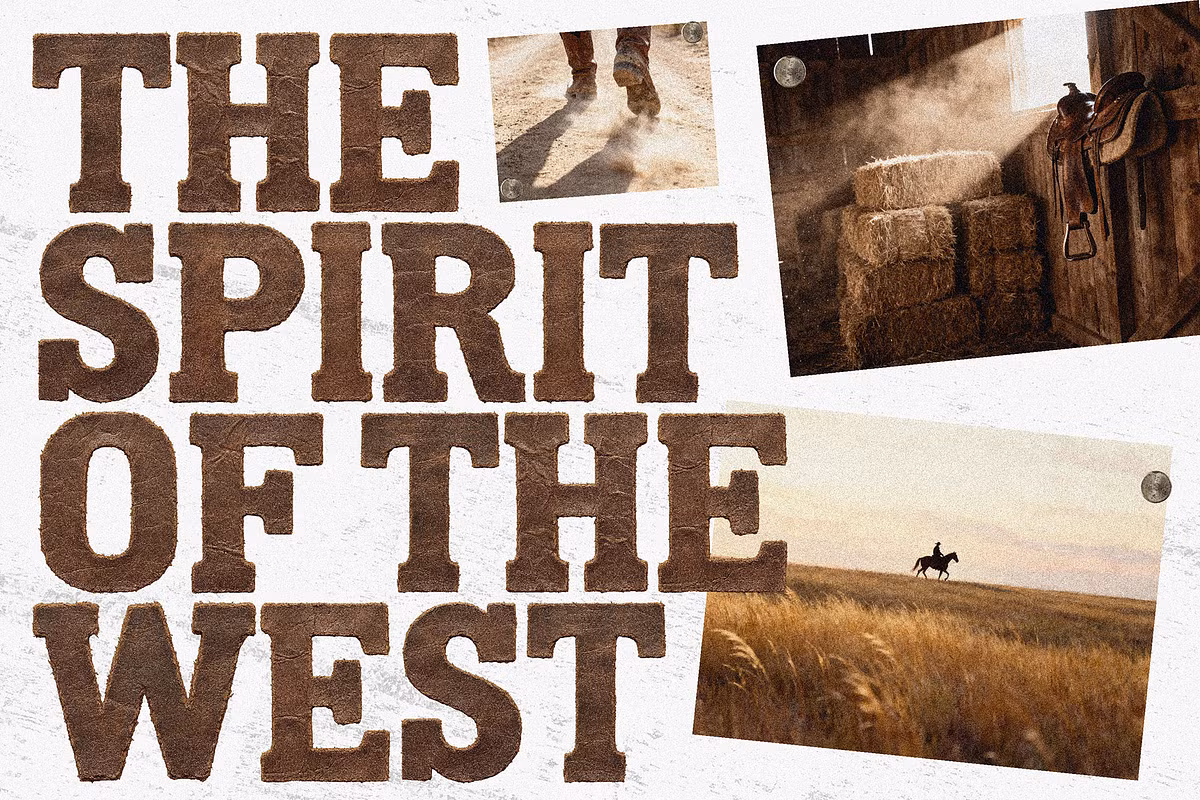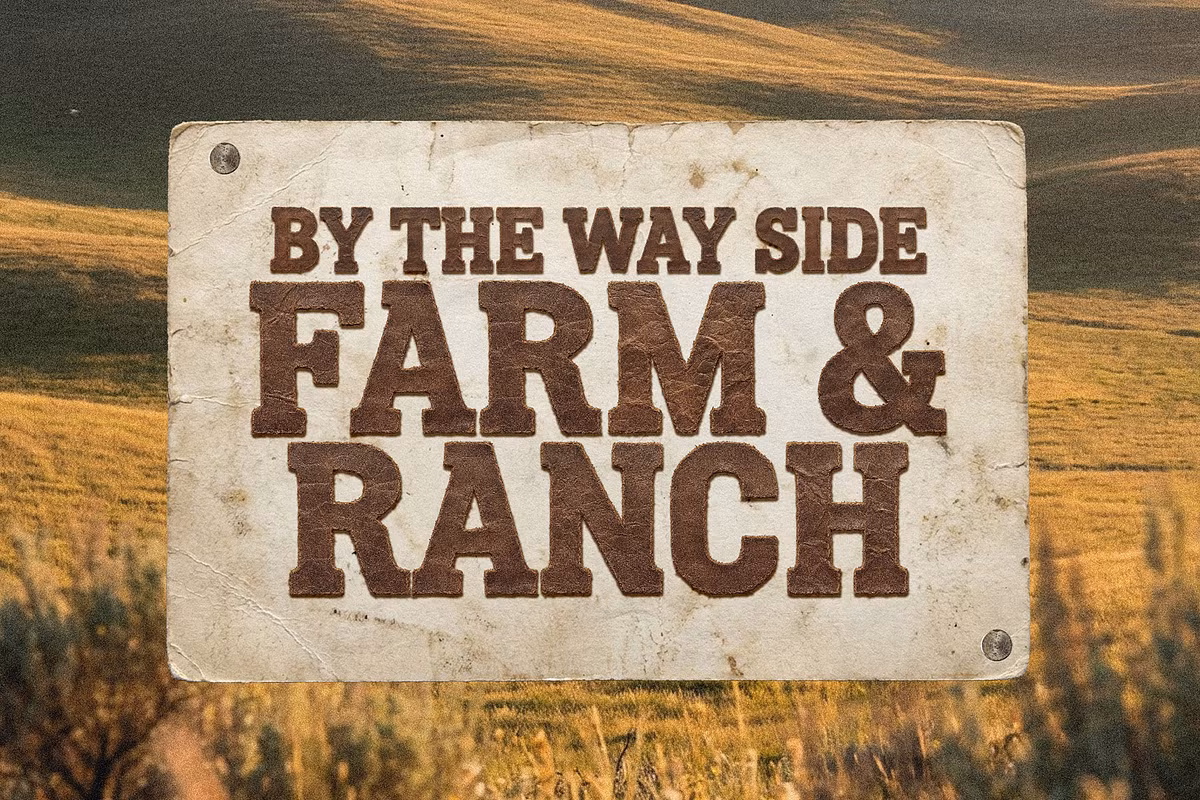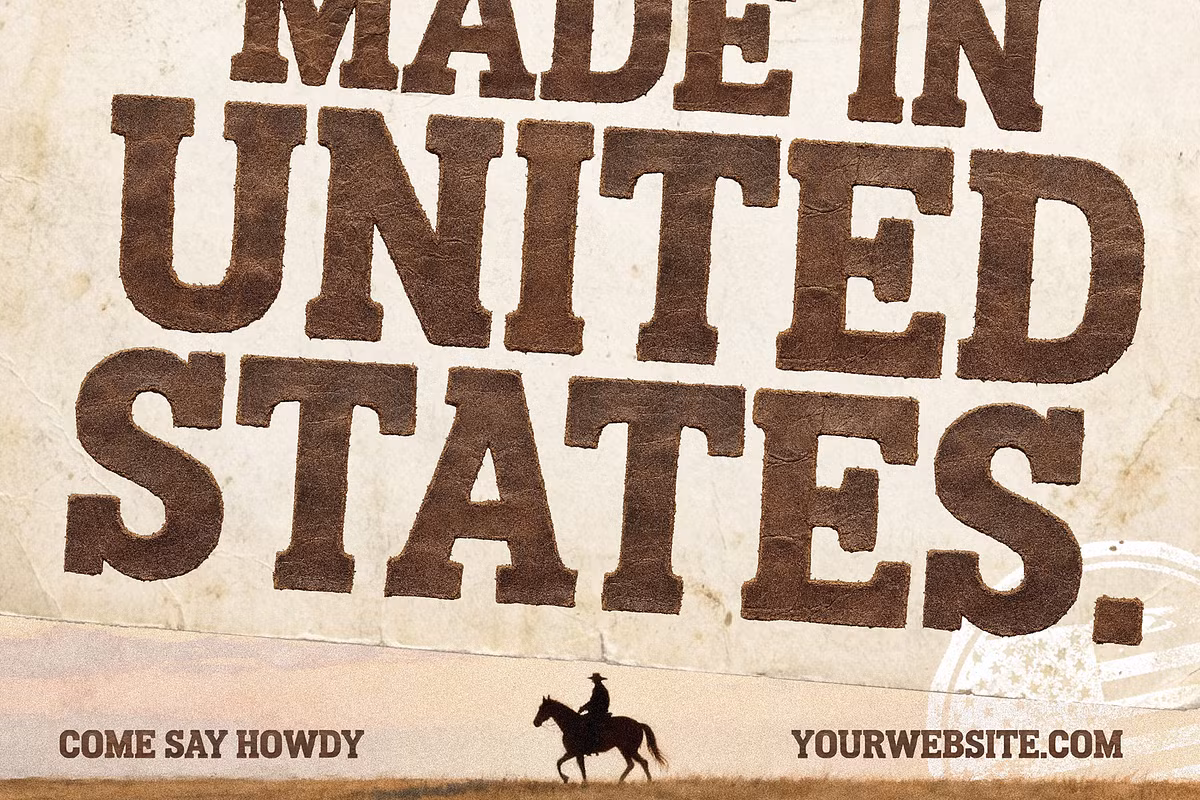
Rustic Buck: Bold Western Leather Font for Authentic Designs
Introducing Rustic Buck, a bold display font made from genuine leather that elevates your designs with a rugged, tactile, and handcrafted feel. With its worn edges, cracked grain, and natural texture variations, this font encapsulates the essence of vintage craftsmanship, making it perfect for projects that require a touch of authenticity and grit.
The Rustic Buck font really catches your eye with its strong and sturdy look, which has a special leather texture that makes it stand out. Every letter is different and shows off the skill of handmade craftsmanship. The font’s rough look is thanks to the real leather used to make it, giving it a feel that you can’t get with regular digital fonts.
This texture makes the font feel more real and interesting, like something you could touch. The mix of bold lines and rough edges gives Rustic Buck a unique personality that’s perfect for projects where you want to add a bit of handmade charm.
Character Sets
Rustic Buck has a big set of characters, including capital and small letters, numbers, and lots of punctuation marks. This means you can use it in many different design projects and still get your point across in a way that looks good.
You can use it to make your message clear and pretty, which is great for grabbing people’s attention. With all the different characters available, you’ve got a lot of options for making your design look just right.
Use Cases
There are numerous creative applications for the Rustic Buck font, making it a valuable addition to your design toolkit. Here are some ideal use cases:
- Western-themed products: From cowboy hats to rustic home decor, Rustic Buck adds an authentic touch that resonates with the Western lifestyle.
- Cowboy-themed parties: Invitations, banners, and signage benefit from the rugged aesthetic of Rustic Buck, instantly transporting guests to a Western setting.
- Ranch and farm events: Use this font for promotional materials and branding, reflecting the authenticity of rural life.
- Music festival posters: Perfect for country, folk, and Americana genres, Rustic Buck captures the spirit of the music and its cultural roots.
- Leather goods promotions: For brands that specialize in leather products, this font visually reinforces the material’s qualities and craftsmanship.
The unique leather texture applied to each character ensures that no two letters look exactly alike, enhancing the handcrafted feel of your designs. This is an important aspect of Rustic Buck that sets it apart from standard typefaces, reinforcing its authenticity and rugged charm.
This means you can keep the same look and feel for your brand, no matter where in the world you’re selling. It’s really useful for brands that want to look the same everywhere, and it helps them connect with lots of different people.